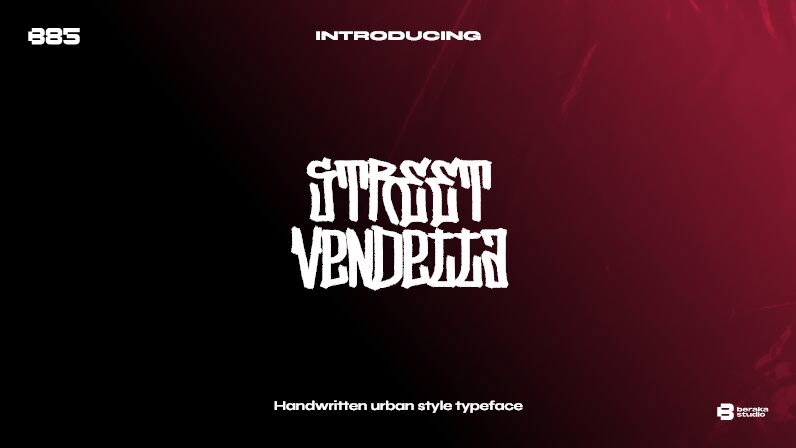
Street Vendetta DEMO - B85 Regular
Street Vendetta font by B85 is a graffiti condensed typeface with handwritten letters that flow naturally. The mixed uppercase and lowercase characters combine to deliver a grungy, distressed, and bold impression distinguished by its chaotic arrangement. An urban feel is evident in the rebellious vibe of the typeface as its rounded corners and edges give it smooth visibility.
Writing made with this free font will elevate poster designs, apparel prints, album covers, movie titles, book covers for young adults, video games interfaces or cover graphics, brands targeted towards teenagers or college students like those for music bands or bars & cafes advertising their concerts or events. Text on wall paintings in social media photos can also use its characters for a trendy natural look!
It includes only upper and lower case letters.